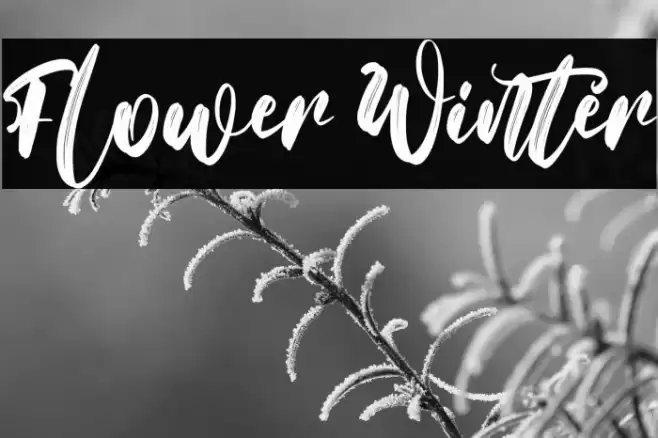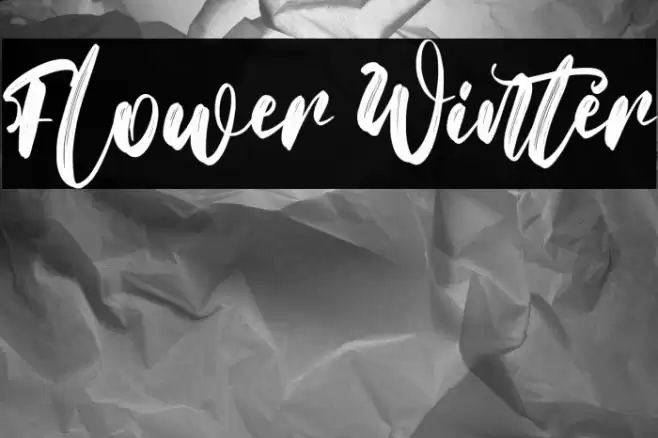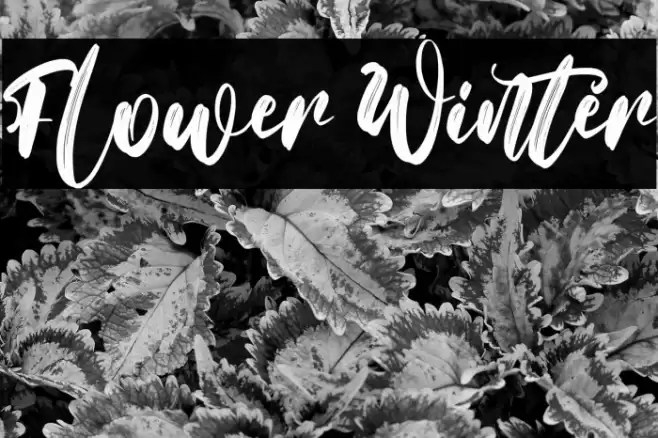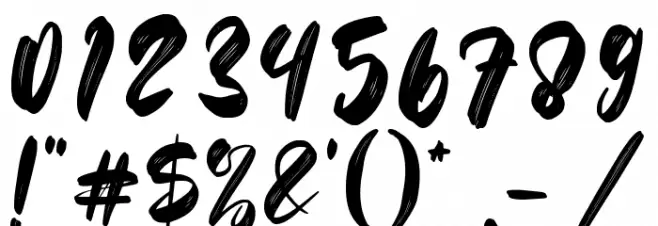
Flower Winter Font
Flower Winter Description
This font showcases a bold and expressive script style, characterized by its fluid, brush-like strokes that convey a sense of movement and energy. The uppercase letters are dynamic and slightly slanted, with varying stroke widths that add a lively rhythm to the text. Lowercase letters maintain a consistent flow, often connecting seamlessly, which enhances the handwritten aesthetic. The numerals and special characters are equally expressive, maintaining the same brush-like quality. This font's overall appearance is both artistic and modern, making it suitable for creative and eye-catching designs.
A bold, expressive script font with fluid, brush-like strokes from Regular fonts.
- Proposed Projects: Ideal for branding, invitations, greeting cards, and artistic posters.
- Overall Style: Modern, Artistic
- Use Case: Logos, Headlines, Invitations